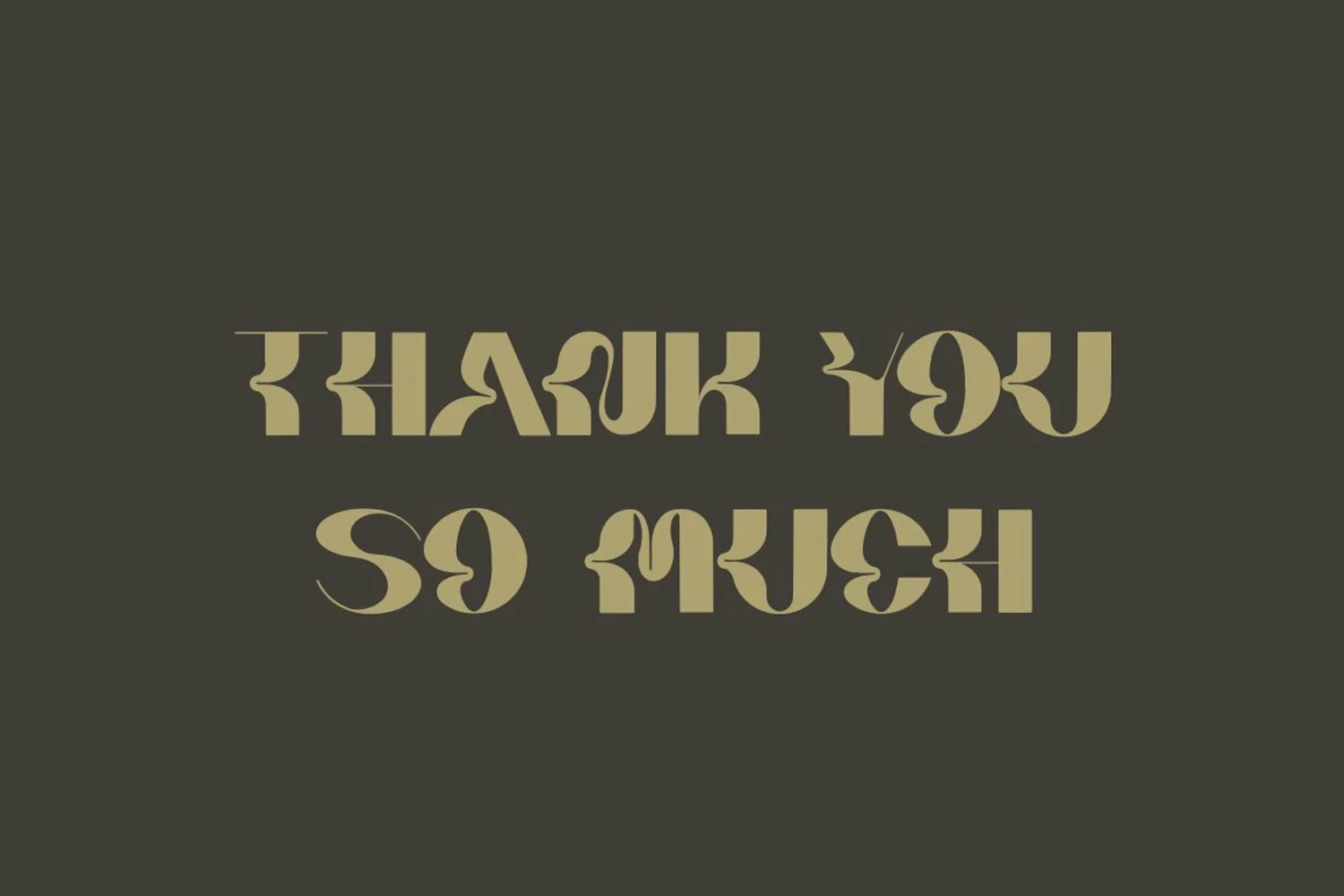
Wavesun is a sans based font with unique lowercase that will make your design looks futuristic and modern. You can use this font for any purpose, especially to make logotype.